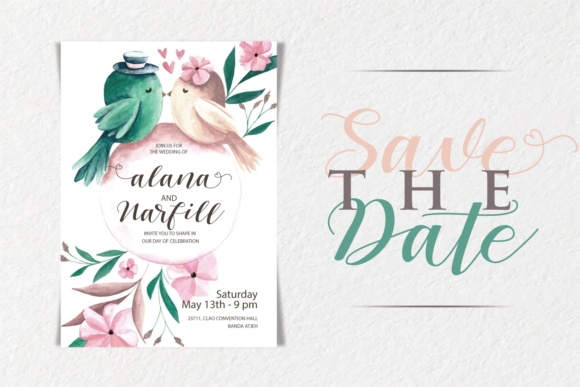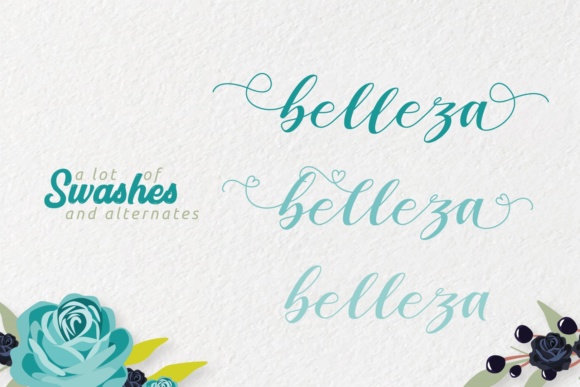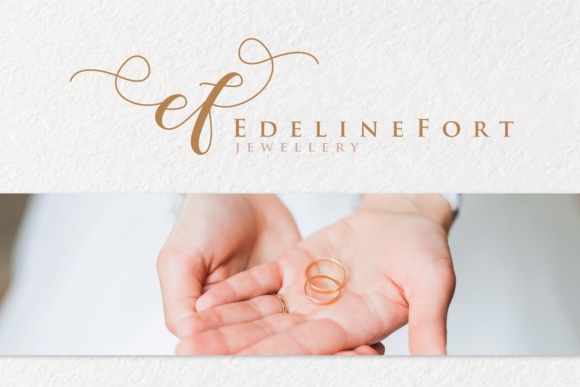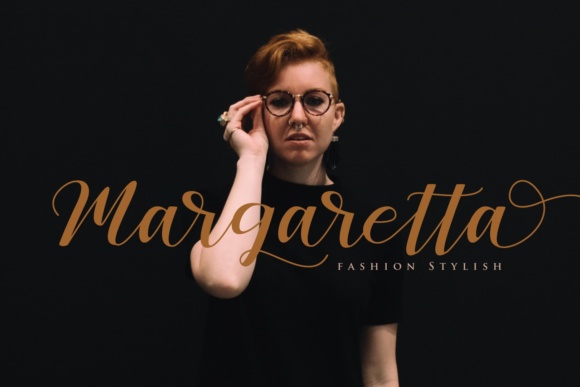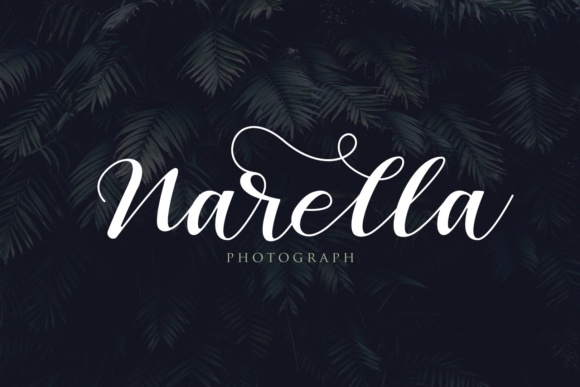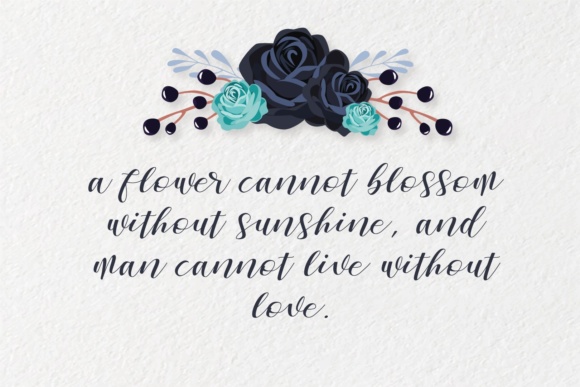
Zelifa Font
About Zelifa Font
Zelifa is a new fresh, unique & modern script with a handmade calligraphy style and decorative characters. This handwritten cursive script is a unique blend of classic and modern font sensibility, suitable for displays in a vast array of project types.